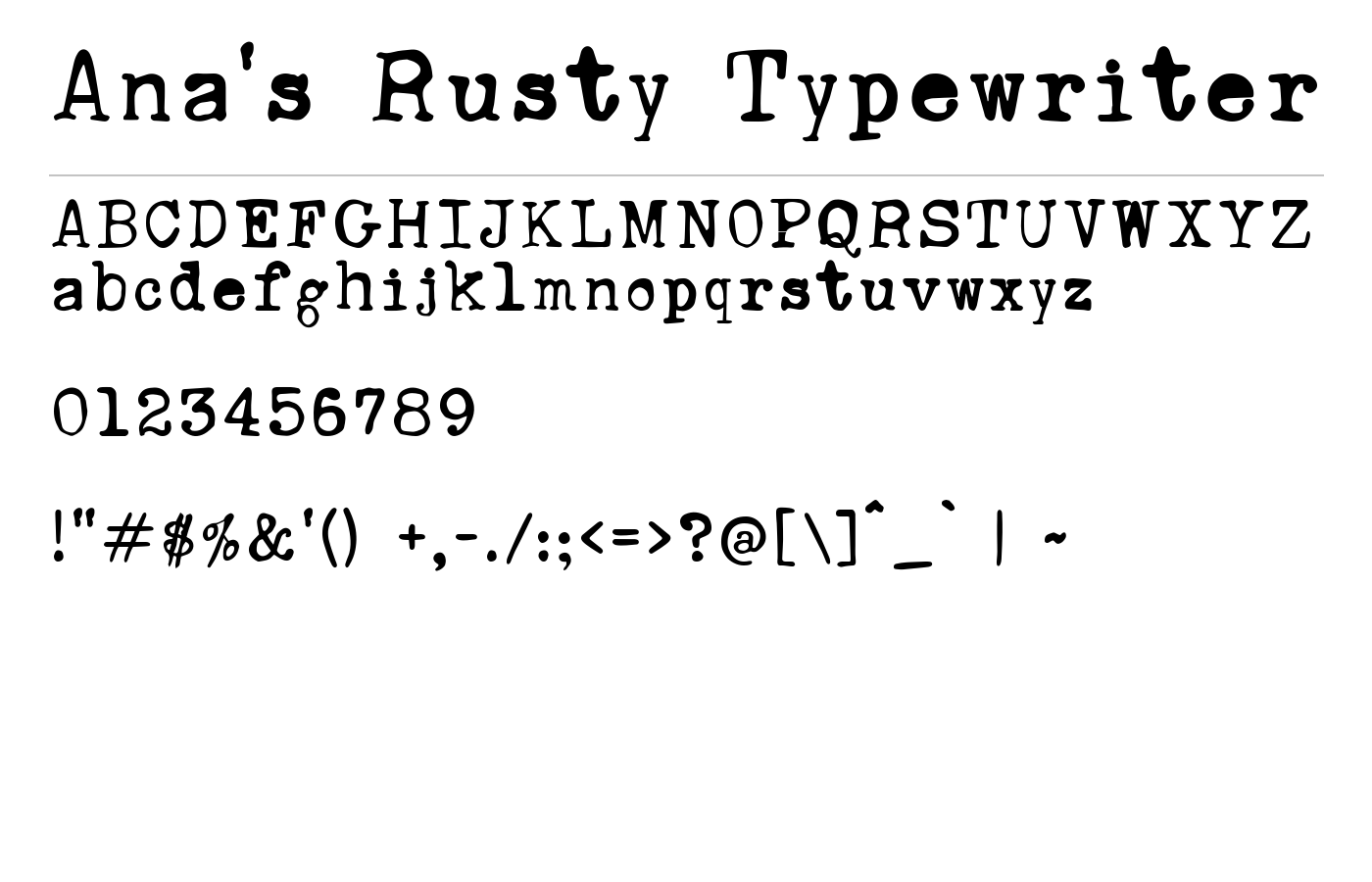
Ana's Rusty Typewriter is a charming monospace serif font that captures the nostalgic feel of vintage typewriters with its slightly irregular, worn-in letterforms and varied stroke thickness. Its quirky, imperfect characters and medium weight give it a playful yet authentic personality, making it perfect for designs that aim to evoke a retro, handcrafted, or literary vibe. This font works well for creative projects, headlines, and packaging that want to combine a sense of history with a casual, approachable style.
Ana's Rusty Typewriter Font
About Ana's Rusty Typewriter Font
| Font family | Ana's Rusty Typewriter Font |
| Designer | Ana Parracho |